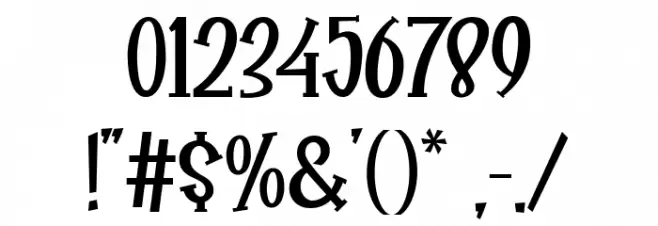
HellowKnight Font
HellowKnight Description
This font features a playful and whimsical style with a unique blend of curves and angles. The uppercase letters are bold and slightly condensed, giving a strong presence, while the lowercase letters maintain a consistent flow with rounded edges. The numerals are distinct and easy to read, complementing the overall design. Special characters are creatively styled, adding to the font's charm. This font's quirky and artistic nature makes it stand out, ideal for projects that require a touch of creativity and fun.
A playful and whimsical font with a blend of curves and angles from Cartoon fonts.
- Proposed Projects: Ideal for children's books, creative posters, playful branding, and artistic invitations.